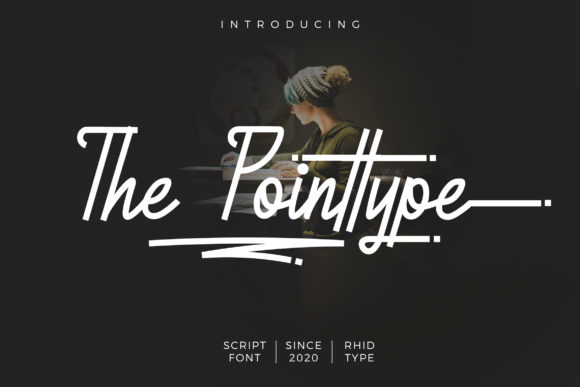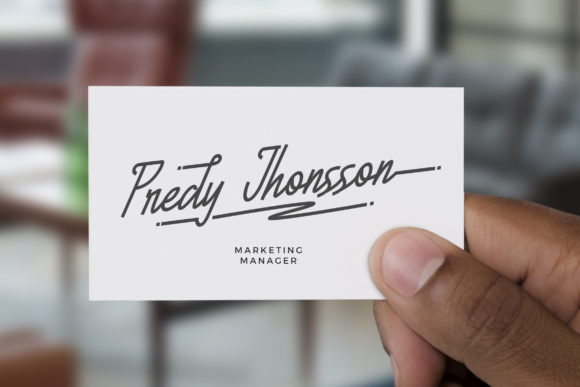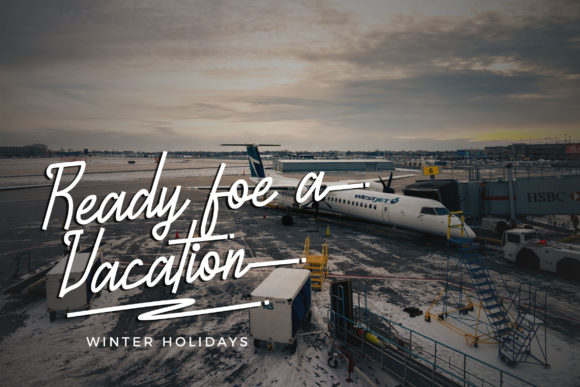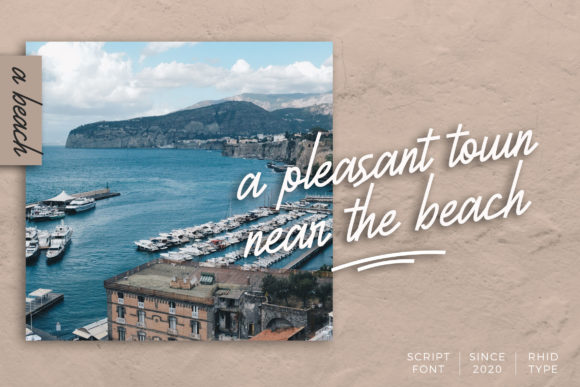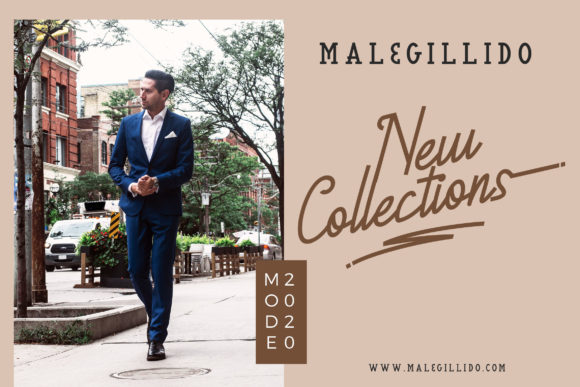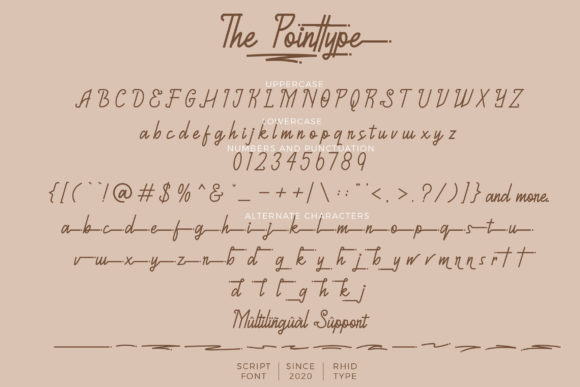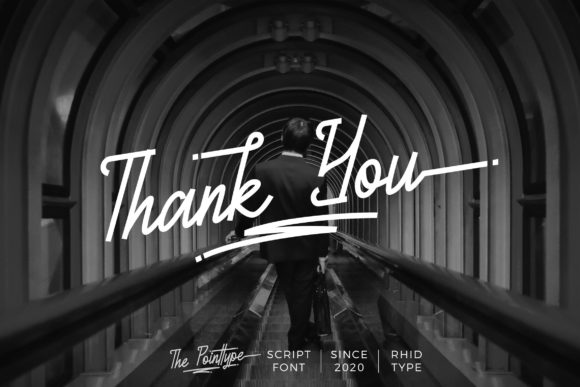
The Pointtype Font
About The Pointtype Font
The Pointtype is an elegant and well balanced handwritten font. Fall in love with its incredibly versatile style and use it to create gorgeous wedding invitations, beautiful stationary art, eye-catching social media posts, and much more!